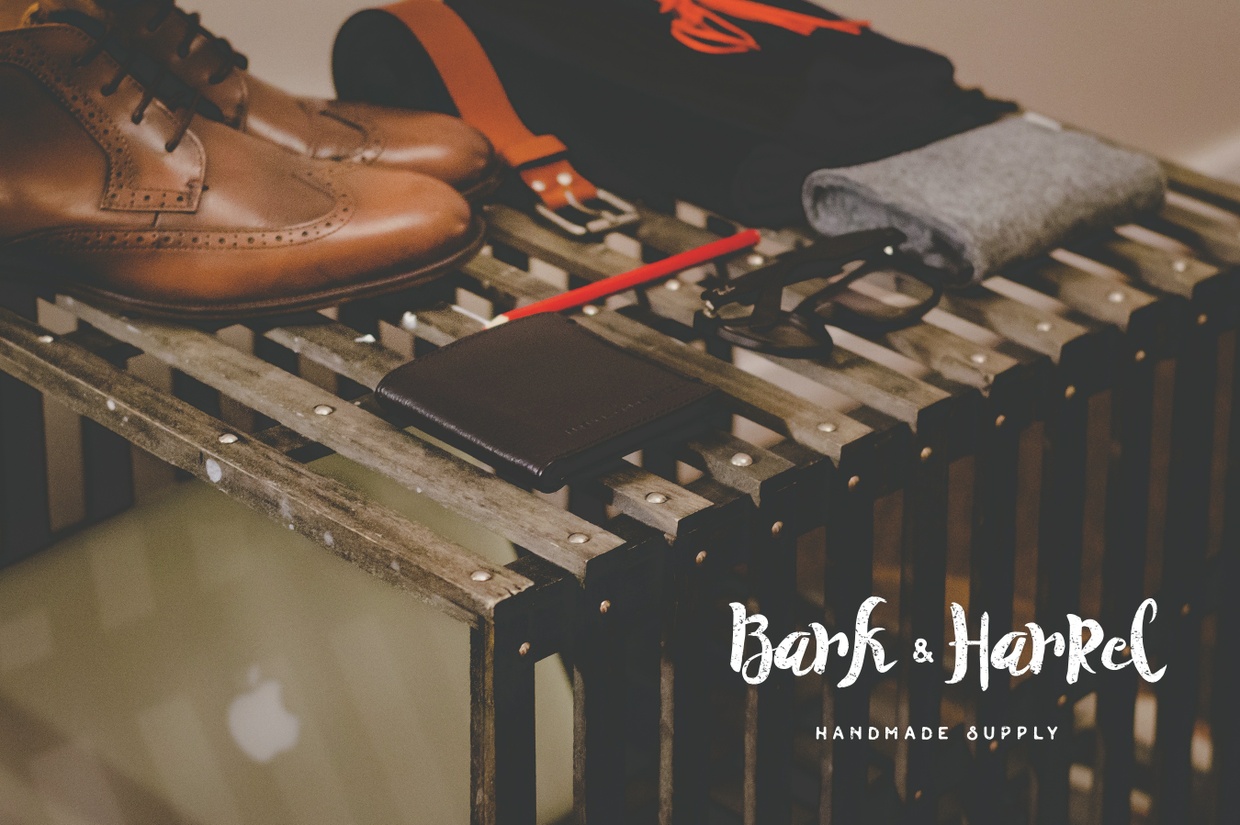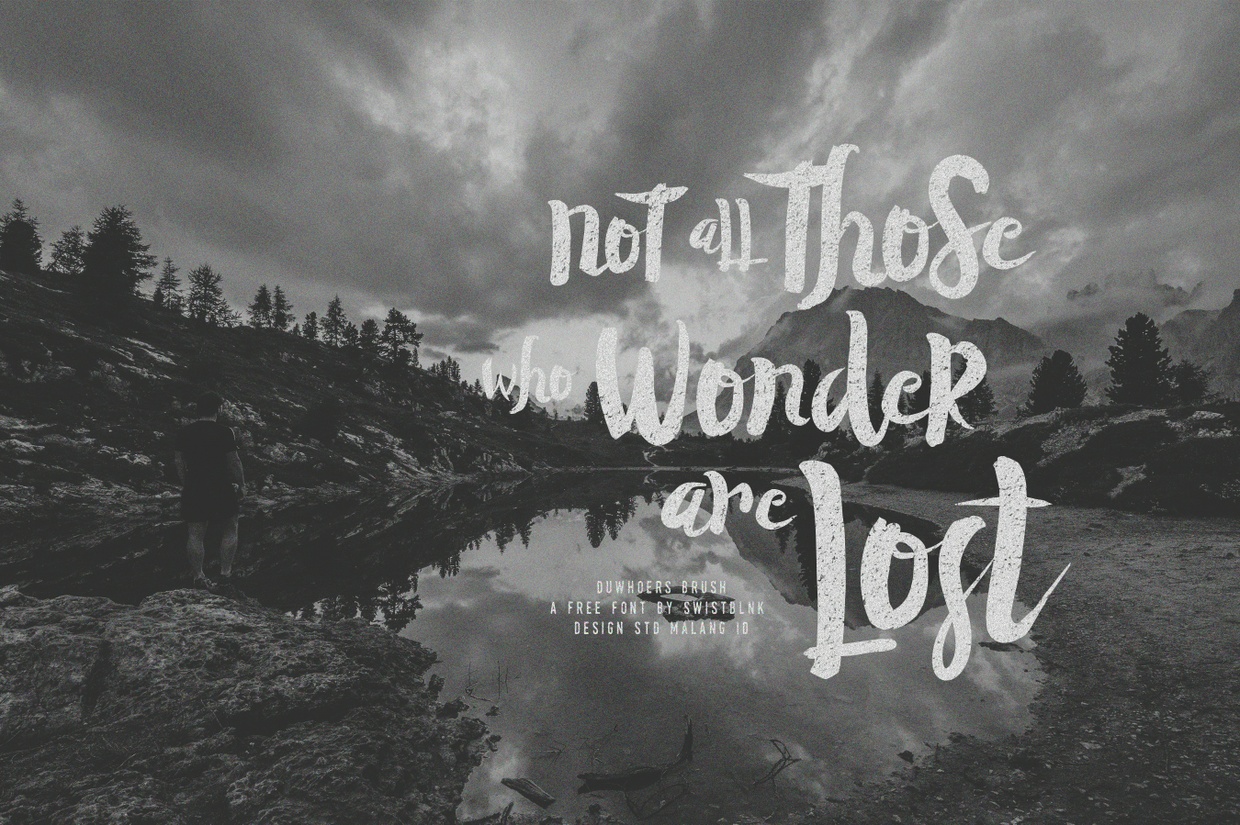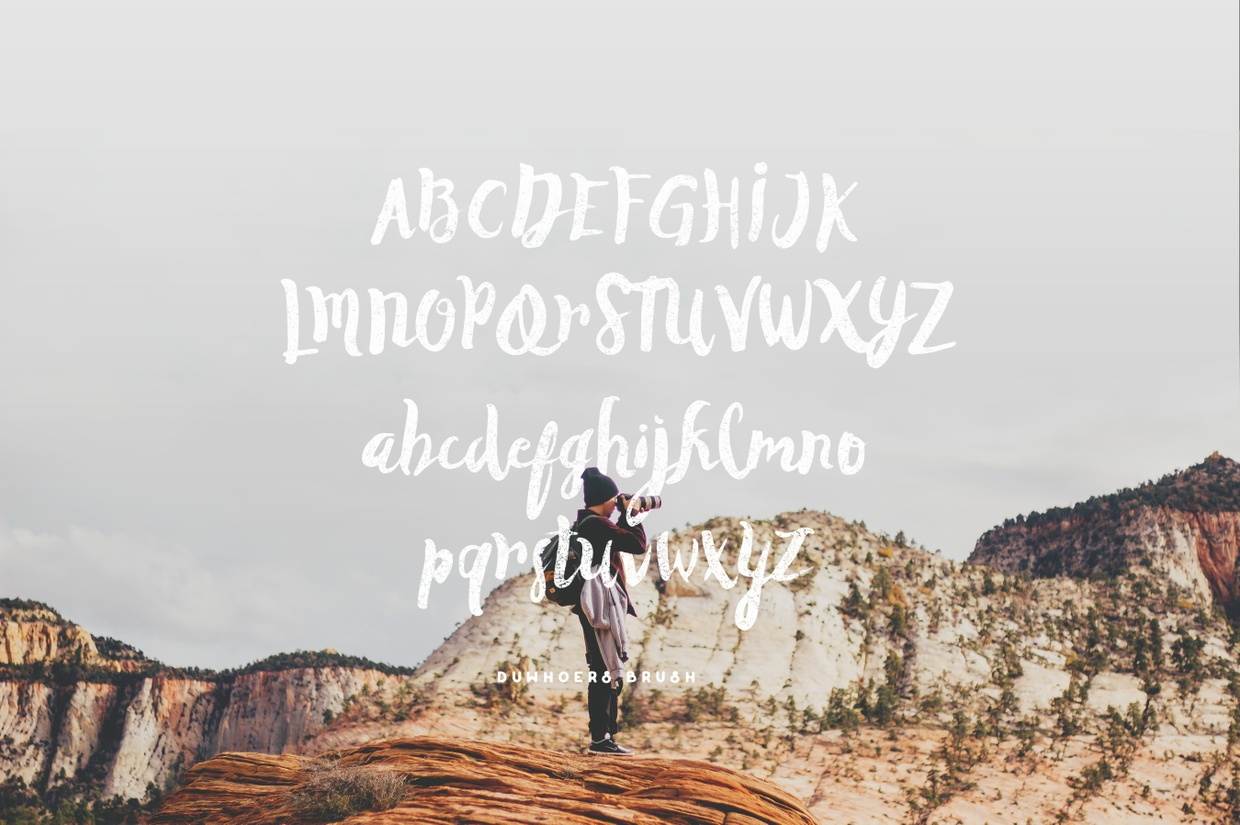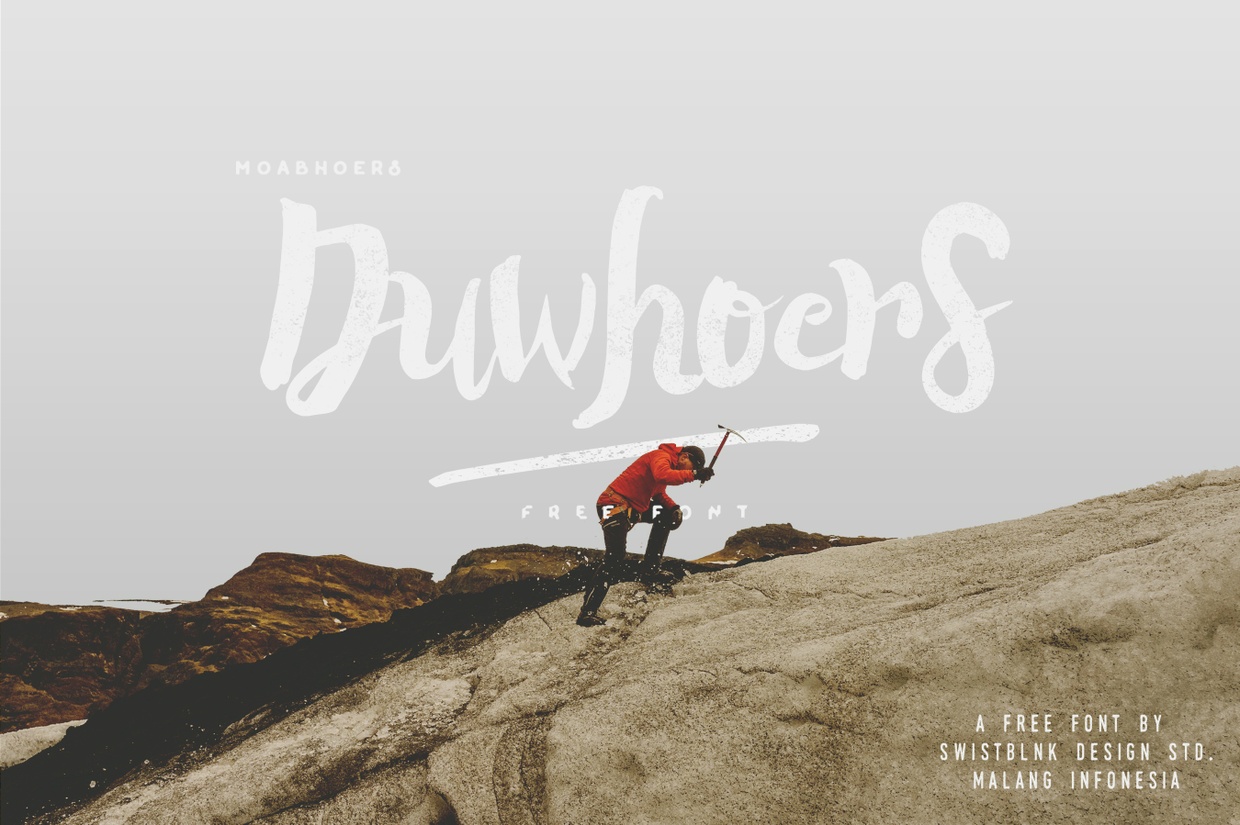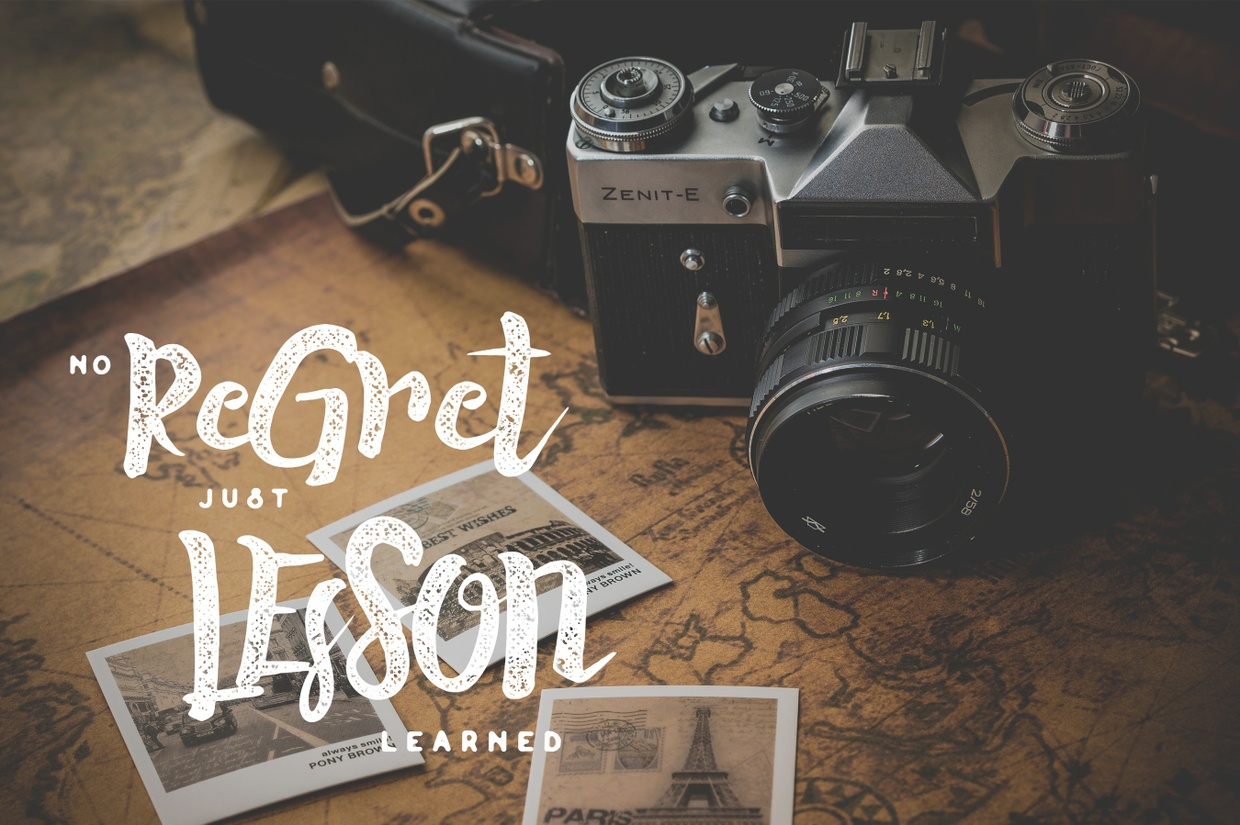
Duwhoers is another brush free font kind of handwritten with one certain vintage appeal, it’s free for personal and commercial use. Check out Agga Swist page, there you will find more cool resources. So if you are looking for this kind of type, you just found it here : ) Enjoy it.
Duwhoers font